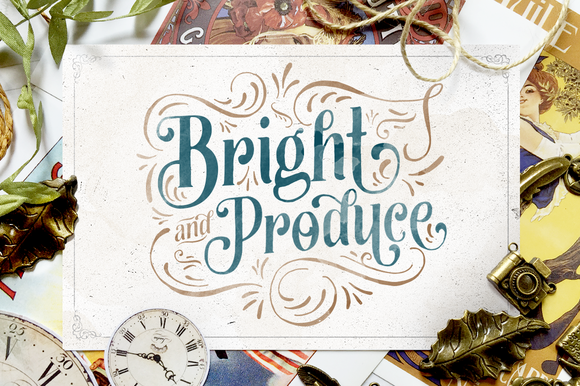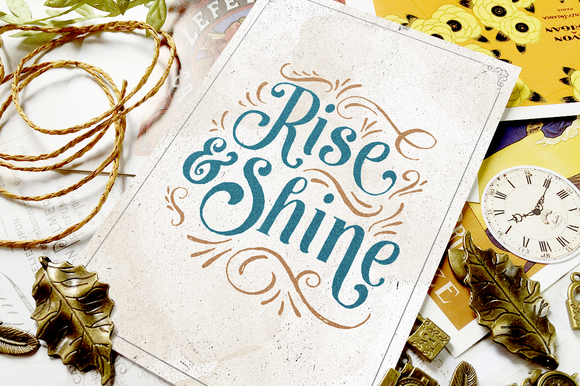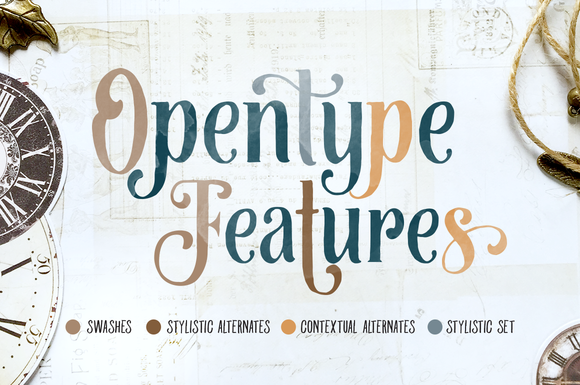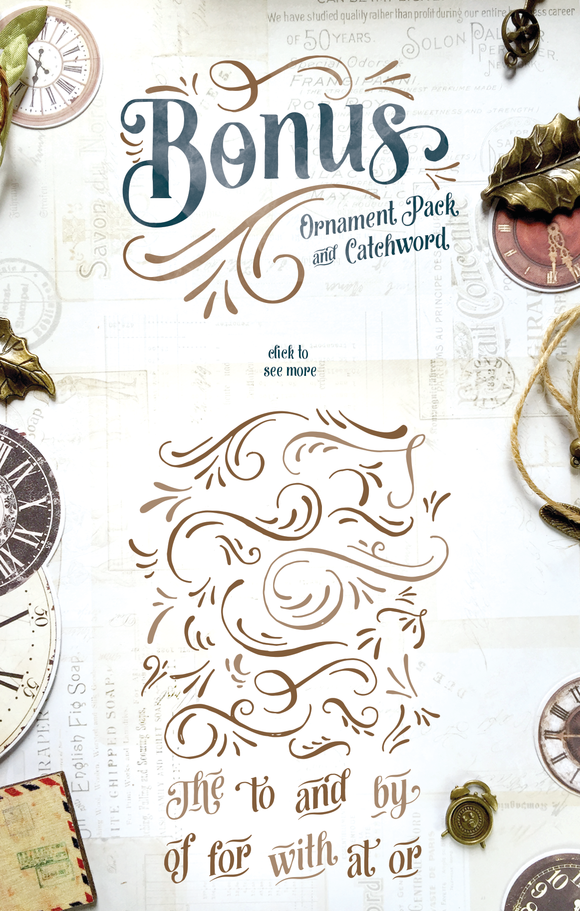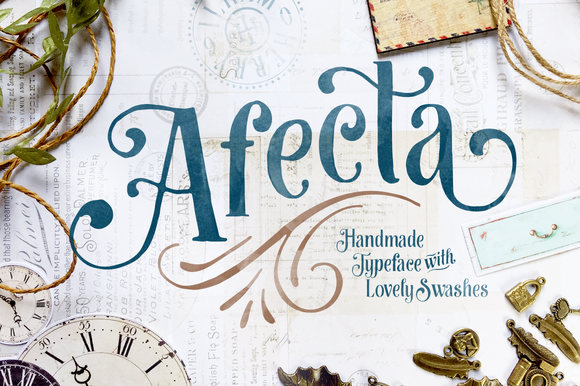
Afecta Typeface
Afecta is a handmade display typeface with lovely swashes in some of the letters. Handdraw style and a touch of ornament makes this font look stylist. Plus OpenType features with Stylistic Alternates, swashes and Contextual Alternates in some characters that allows you to mix and match pairs of letters to fit your design. To access the alternat glyphs, you need a program that supports OpenType features such as Adobe Illustrator CS and Adobe Indesign. More information about how to access alternate glyphs, you can see it on this link ( http://goo.gl/oBLKpz ). You can use this font for various purposes.such as logo, wedding invitation, t-shirt, posters, lable, scrapbook, postrcard, greetingcard, letterhead, book cover and many more.